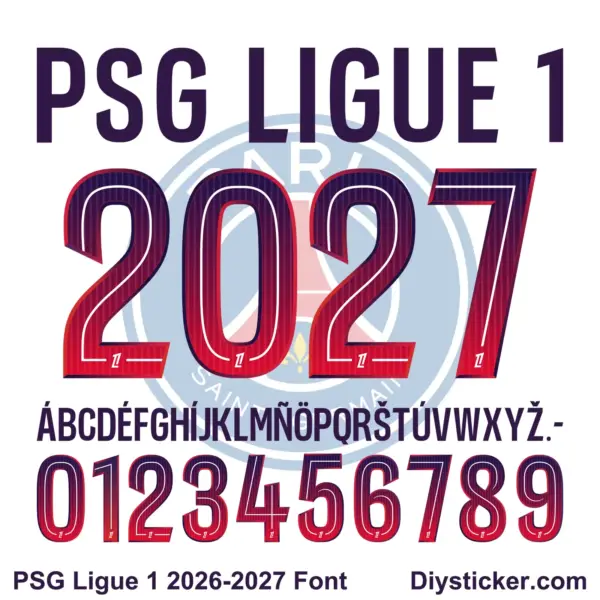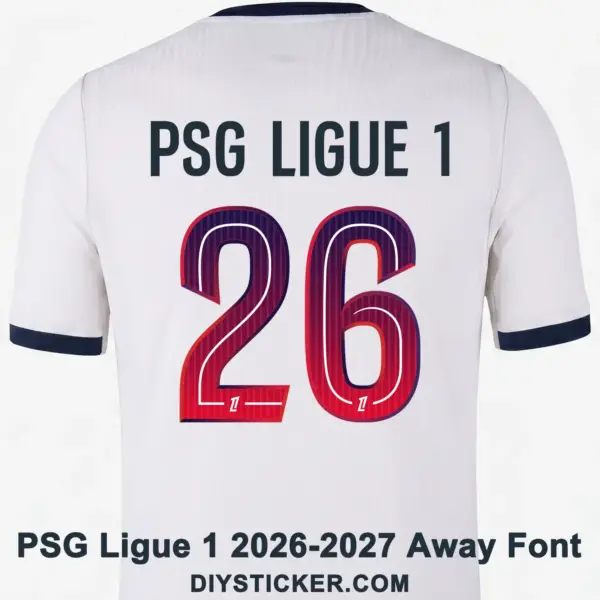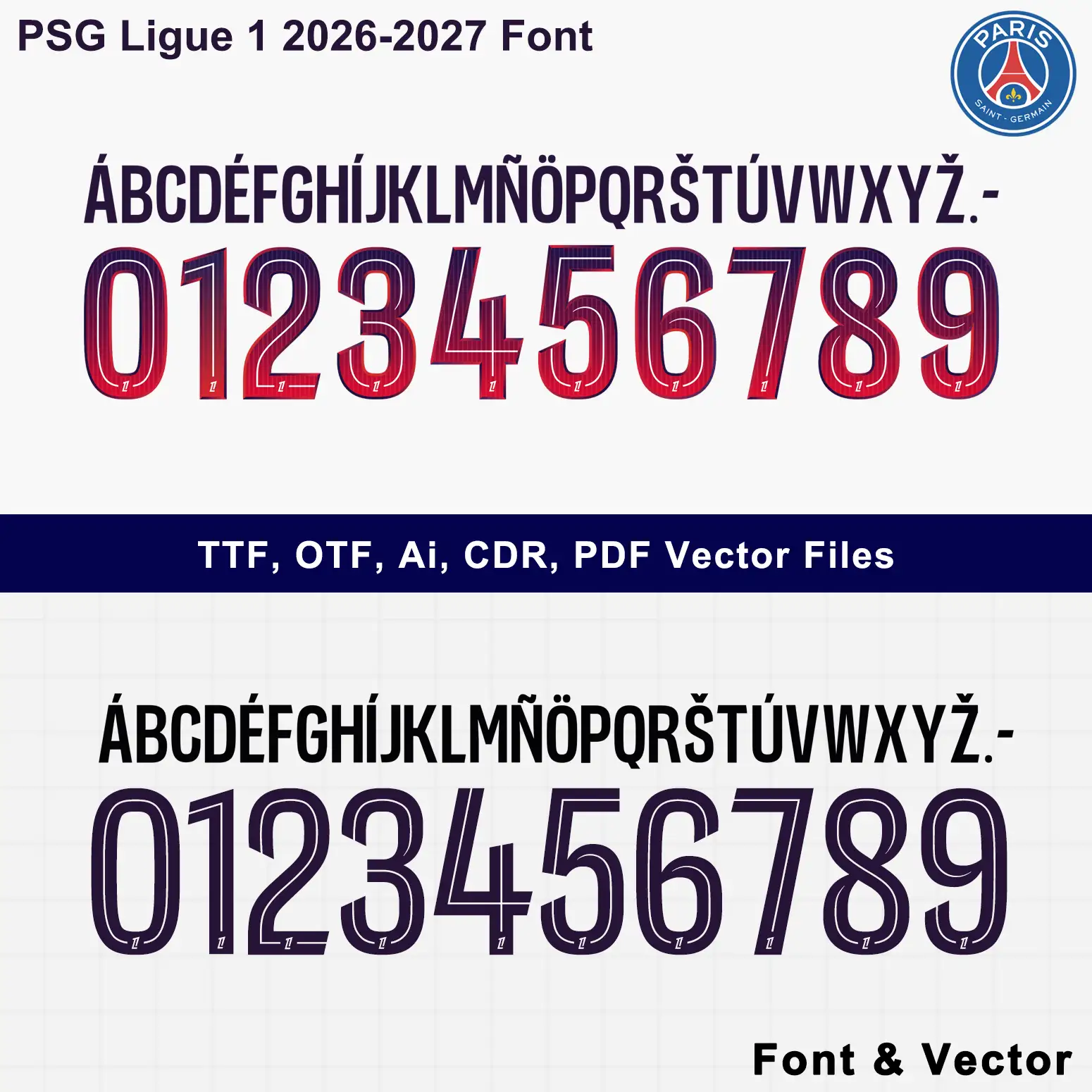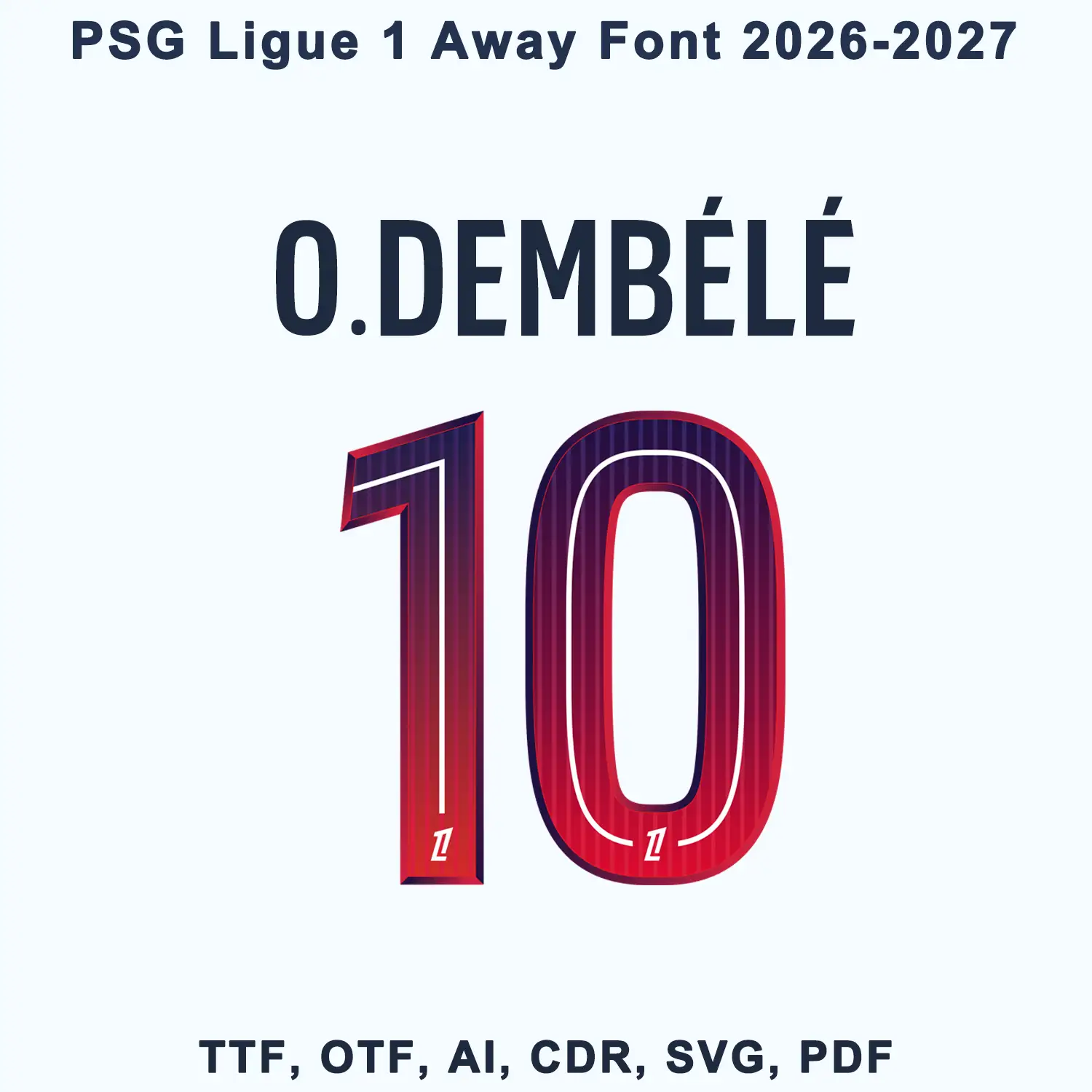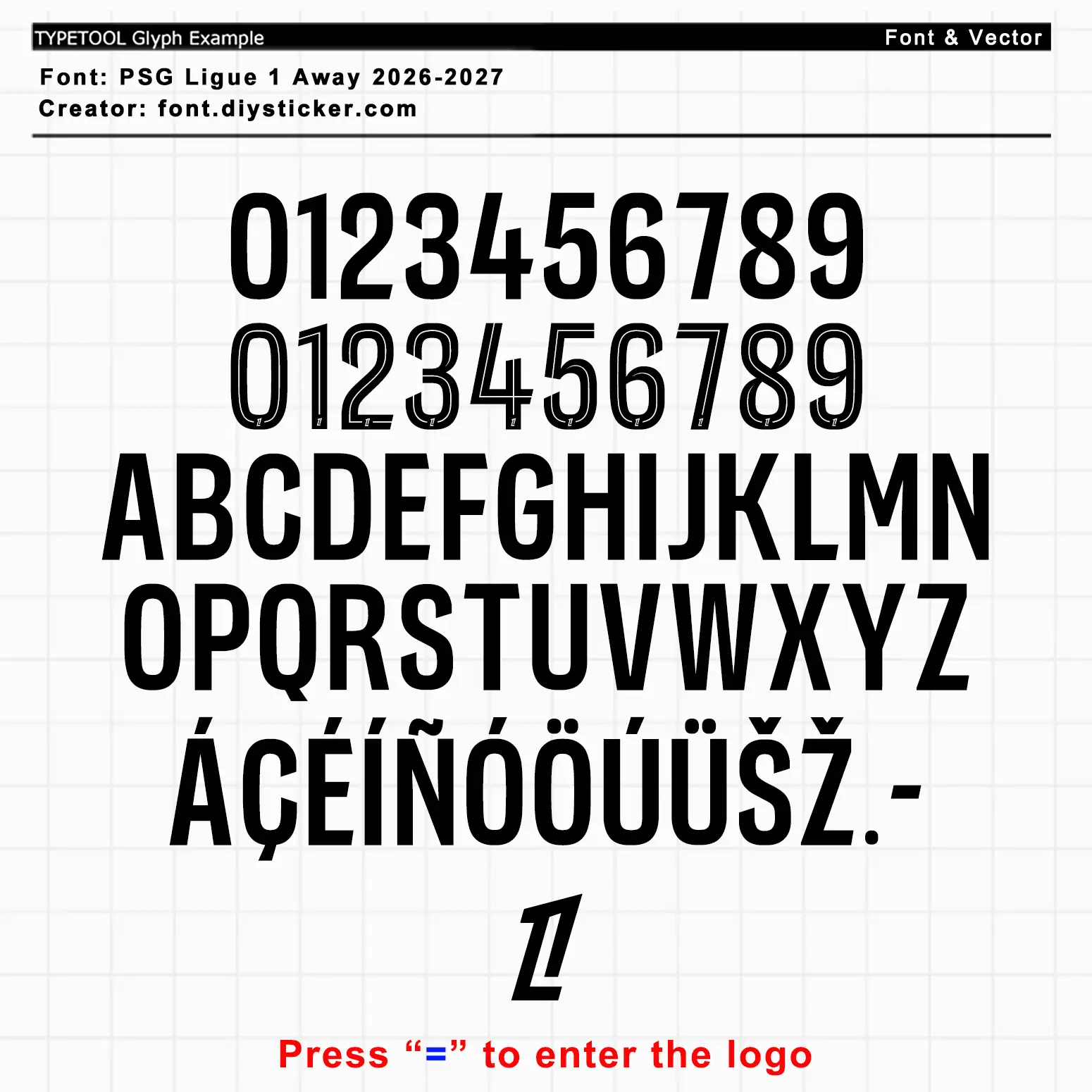
Paris Saint-Germain PSG 2026-2027 Ligue 1 Away Font & Numbers Download
Equip your production studio with the verified PSG 2026-2027 Ligue 1 away font master file bundle, engineered specifically for custom uniform printers, sports apparel shops, and football jersey collectors. This premium digital asset delivers a perfect recreation of the clean, modern sans-serif letterforms and the stunning 3D-effect gradient numbers deployed by Paris Saint-Germain during domestic league away matches. Avoid the time-consuming process of manually tracking low-fidelity photos—our production-ready assets provide installable desktop system typefaces and clean cutting vectors for immediate download right after checkout.
League-Accurate Details: Captures the official Ligue 1 geometric silhouettes, precise inline stroke accents, and the distinct Ligue 1 baseline monogram placeholders.
Premium Paris Saint-Germain PSG 2026-2027 Ligue 1 Away Font & Numbers Archive
In the fast-paced custom teamwear manufacturing and classic kit restoration sectors, having access to sharp, verified club assets heavily influences your production speed and business profitability. The Parisian giants’ domestic kit profiles demand absolute typographic accuracy to maintain premium retail value. This commercial-grade PSG 2026-2027 Ligue 1 away font repository serves as an industry-grade toolkit for modern print shops. Instead of guessing stroke weights, 3D shadow depths, or gradient-shift transition points, your workshop floor can instantly import production-ready digital tracks to output high-fidelity namesets.
True Replica Detailing: Every asset accurately maps the unique character tracking, intricate line-gradient fills, internal inline detail cuts, and precise baseline league monogram markers required for collector-grade apparel customization.